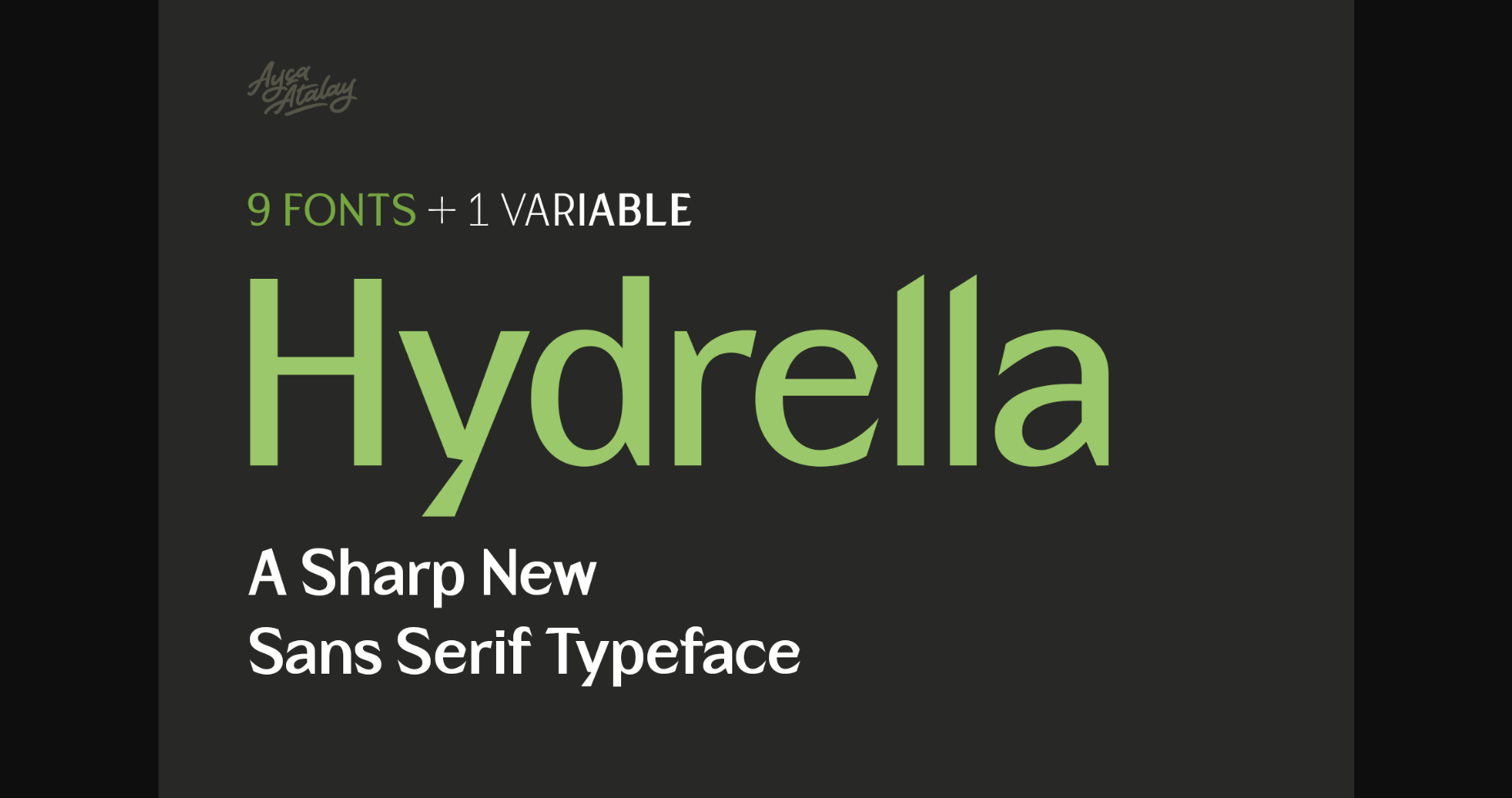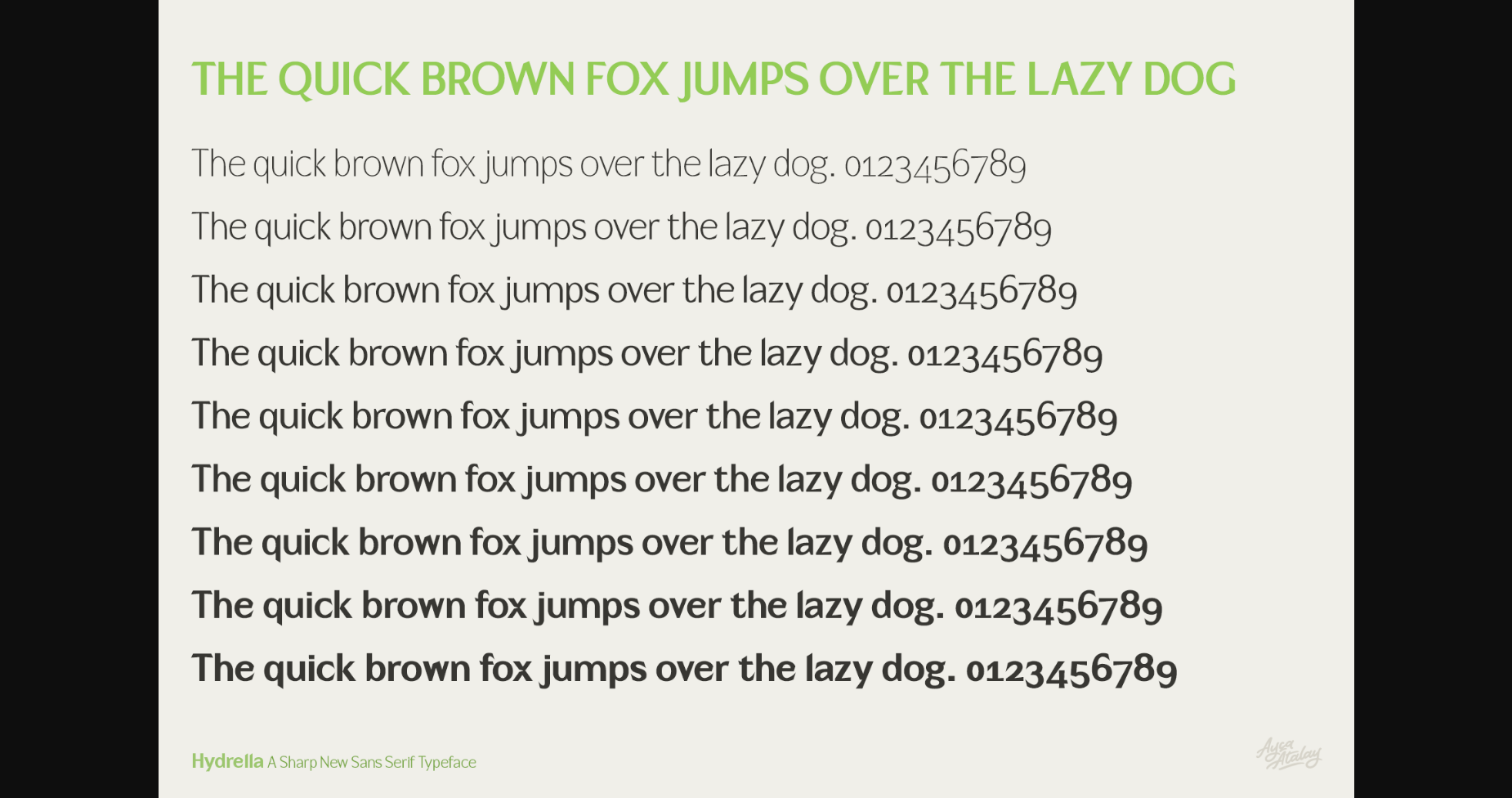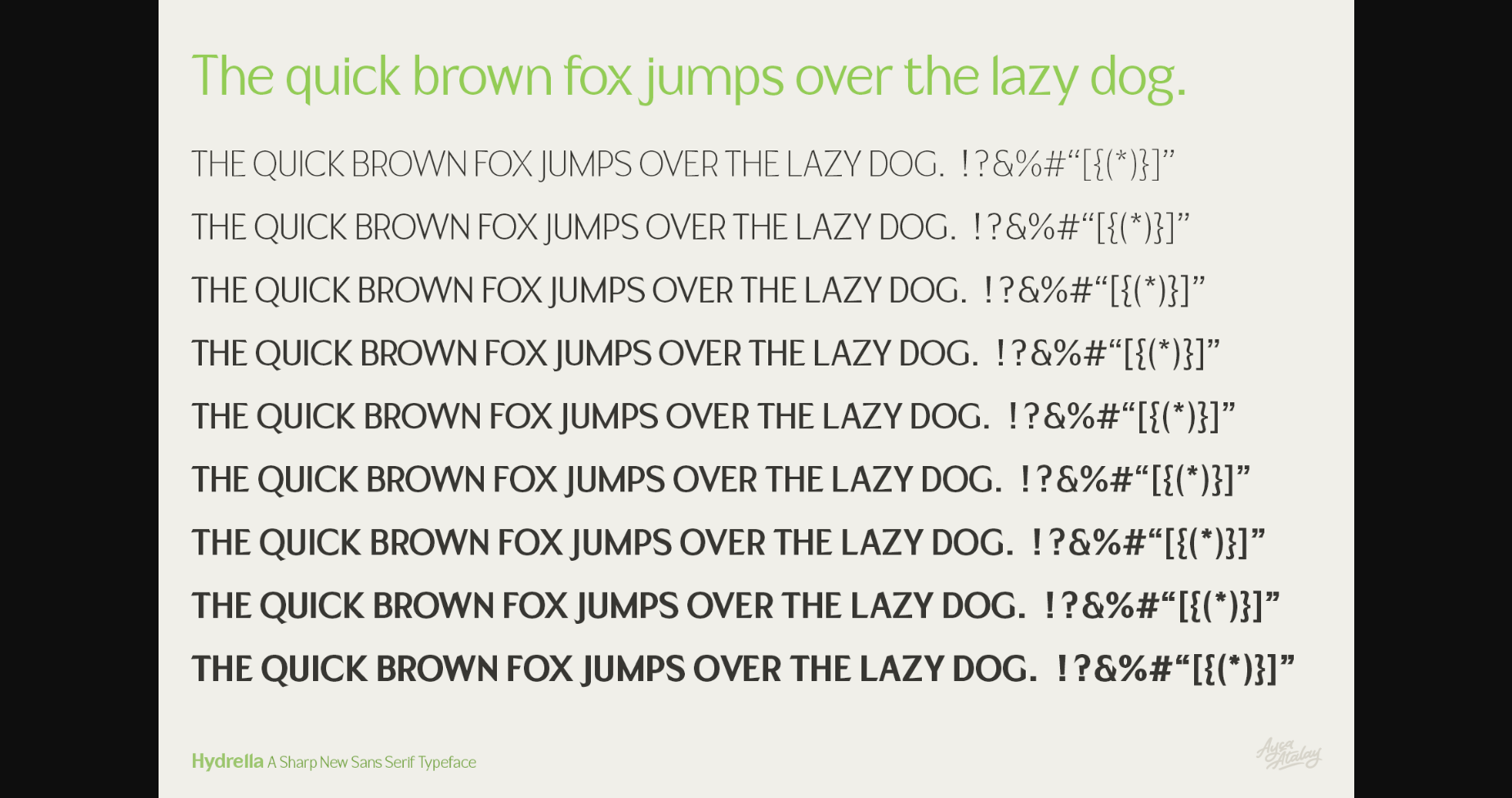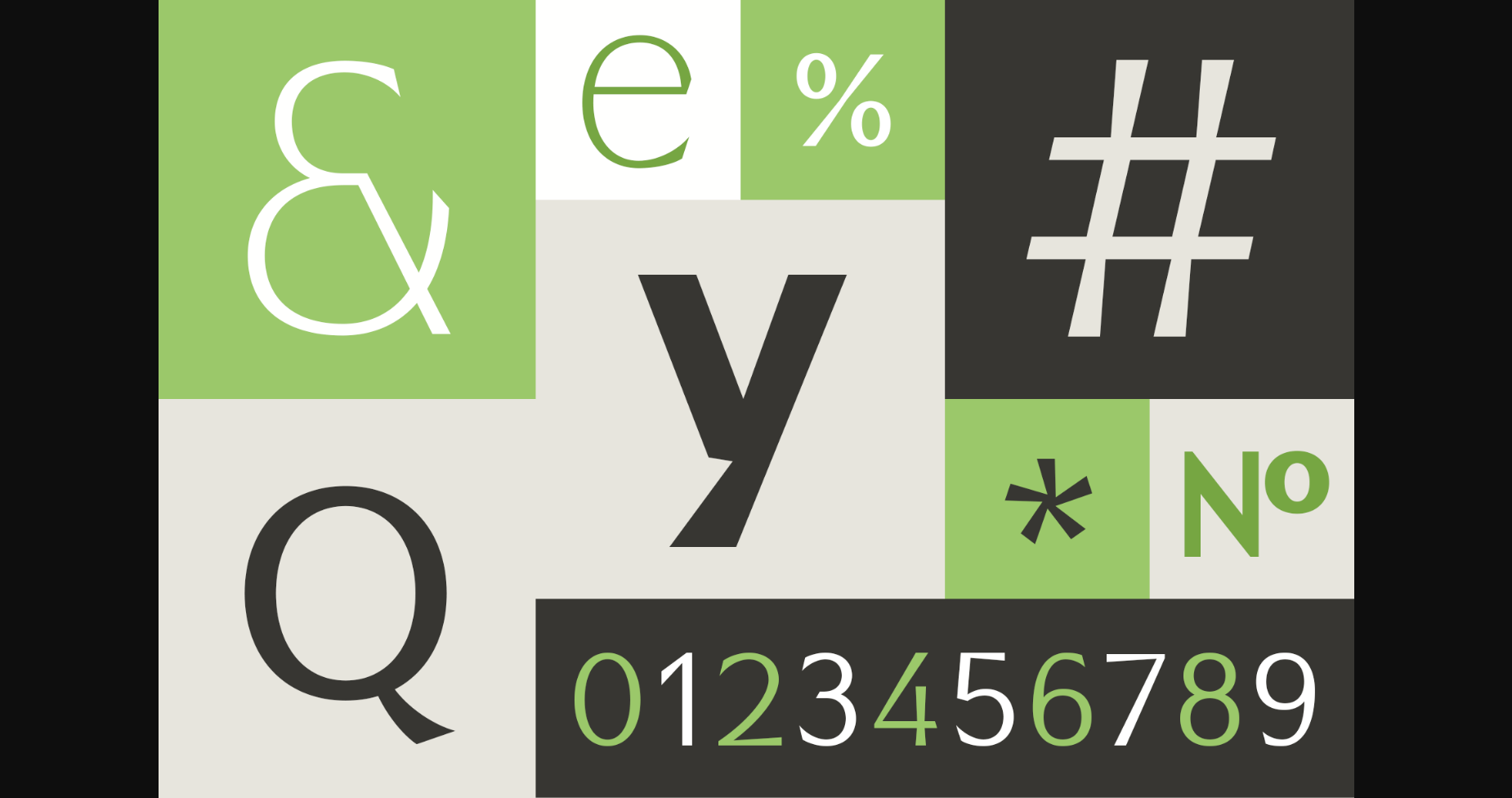
About Hydrella Font
Hydrella is a modern sans serif font with sharp, unique features and moderately high contrast. Its easily distinguishable attributes provide just enough of a fresh new look without overpowering the overall design —which is what you would expect from a sans serif.